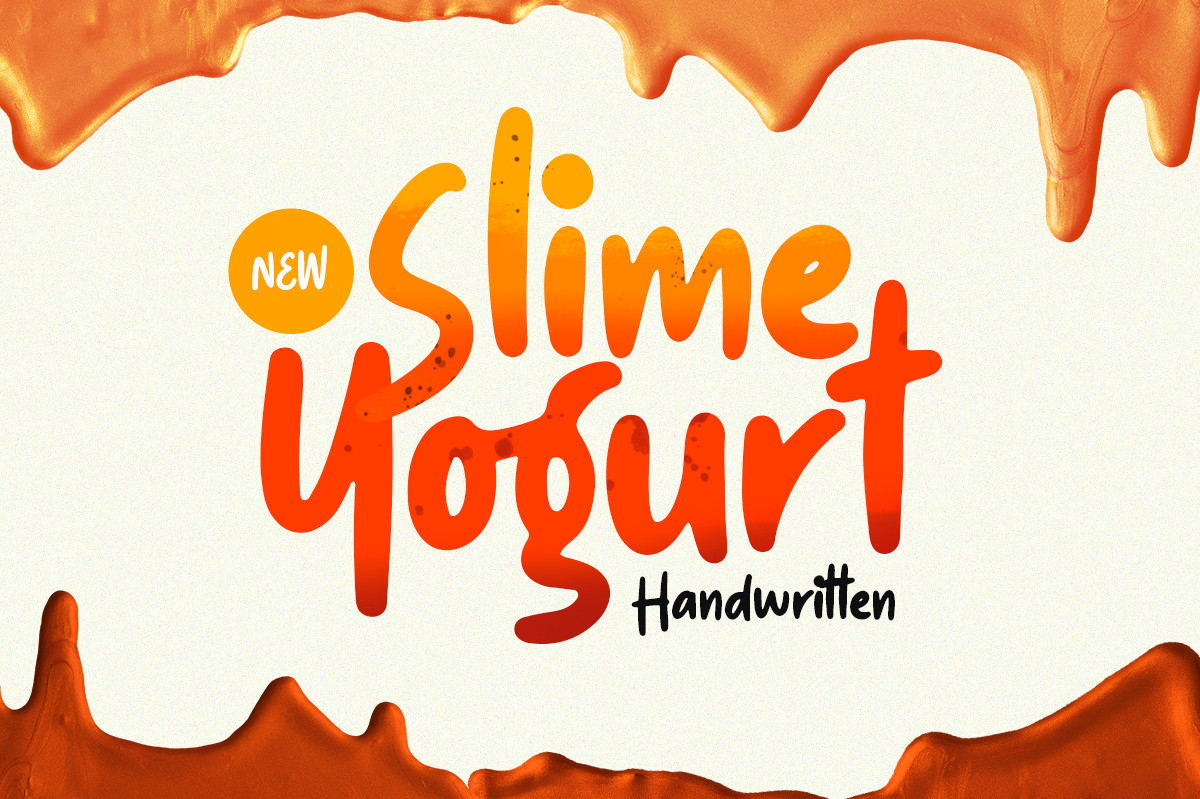
Slime Yogurt Font
Slime Yogurt Font is perfect for playful children's product packaging, fun toy store branding, whimsical candy shop signage, creative slime-making kit labels, colorful kids' party invitations, imaginative craft project materials, cheerful frozen yogurt shop menus, vibrant children's entertainment graphics, quirky social media campaigns, and delightful educational game interfaces. This gooey typeface brings sticky-sweet charm to children's science experiment kits, playful dessert branding, fun family entertainment venues, creative art supply packaging, and imaginative youth-oriented marketing materials.
Slime Yogurt Font is exciting because it captures the delightfully gooey and playfully sticky essence of childhood fun through its uniquely textured letterforms. The font features characters with organic, flowing shapes and creamy textures that evoke the satisfying squishiness of slime and the smooth, delicious consistency of yogurt. Its distinctive construction demonstrates playful fluidity with carefully crafted drip effects and rounded edges that create an immediate sense of tactile fun and sweet indulgence. The font's gooey personality and kid-friendly appeal make it perfect for brands seeking to communicate playful enjoyment, sensory fun, and delightful childhood experiences in their visual communications.
The Slime Yogurt Font family includes various textured styles: Drip, Gooey, Smooth, Chunky, Light, Regular, Bold, Sticky, Flowing, Condensed, Extended, and Playful variants. Each family member maintains the core gooey DNA while offering different levels of stickiness for diverse fun design applications. The comprehensive font collection ensures consistent playful branding across children's product lines, entertainment campaigns, and sensory-focused marketing materials.
Slime Yogurt Font Free Download offers designers an exceptional opportunity to infuse their projects with authentic playful texture and child-friendly charm. This remarkable typeface seamlessly blends tactile appeal with contemporary functionality, making it ideal for both digital children's platforms and premium fun-themed print materials. The font's carefully crafted gooey details and playful flow create memorable visual experiences that resonate with audiences seeking fun, sensory enjoyment, and delightful childhood nostalgia.
Whether you're creating children's brand identities, designing playful product packaging, developing fun website headers, or crafting kid-friendly promotional campaigns, Slime Yogurt Font delivers outstanding playful appeal and sensory authenticity. The font's distinctive gooey personality excels in children's logos, fun packaging design, playful applications, and entertainment projects where tactile fun and childhood delight are essential.